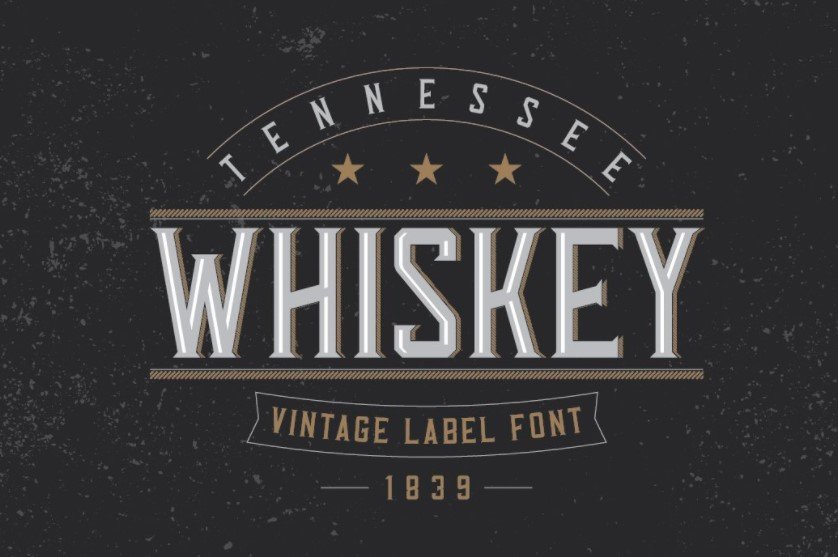
If you are creating a wedding website and wants to show your designs or photographs on that, and wanted to attract users. Then, this heavy and display font is
Hello everyone, today we're excited to introduce a highly attractive, intelligent, and relatable typeface that is ideal for large screen designs. This typeface pairs wonderfully with the propaganda font.
If you are creating a wedding website and wants to show your designs or photographs on that, and wanted to attract users. Then, this heavy and display font is perfect for that projects.
Also, you can utilize it for some other designs that will make your projects so much stunning. This is world's outclass typeface that you will be used in your upcoming designs.